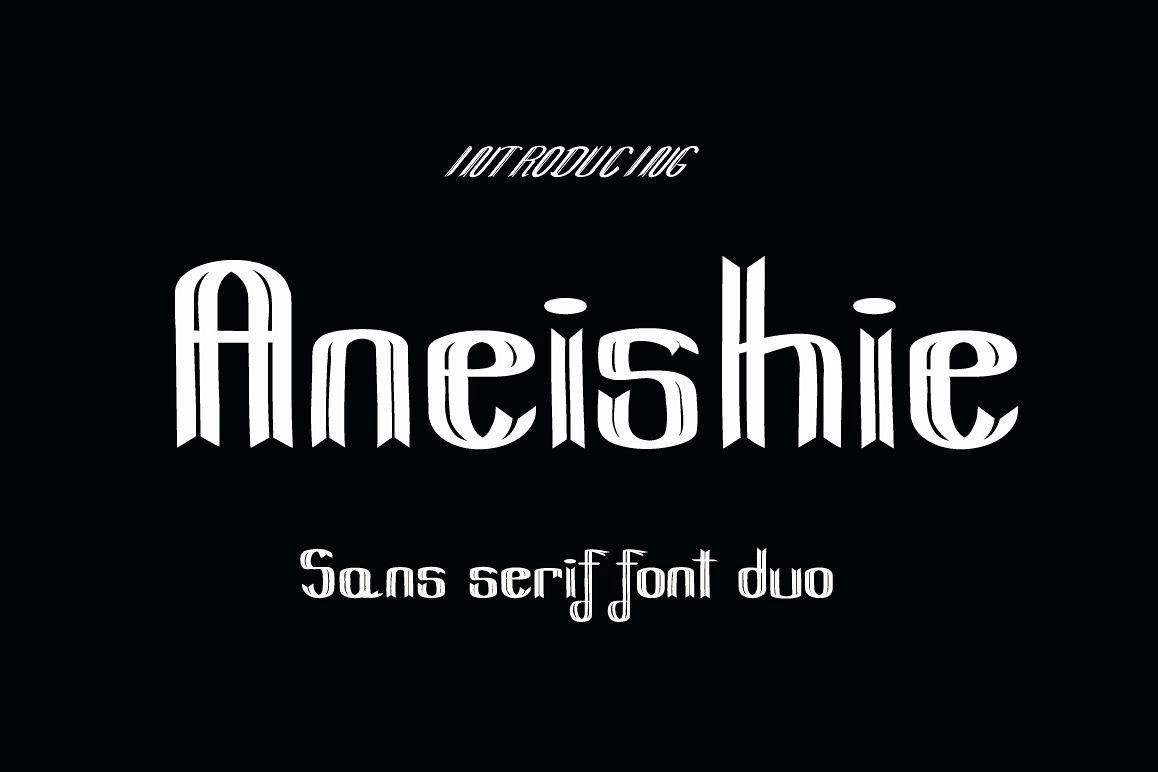
Aneishie
Aneishie Font Dou is new sans serif font has a sleek typeface, font is very simple and easy to manipulate: logo, slogan and made in advertising messages.